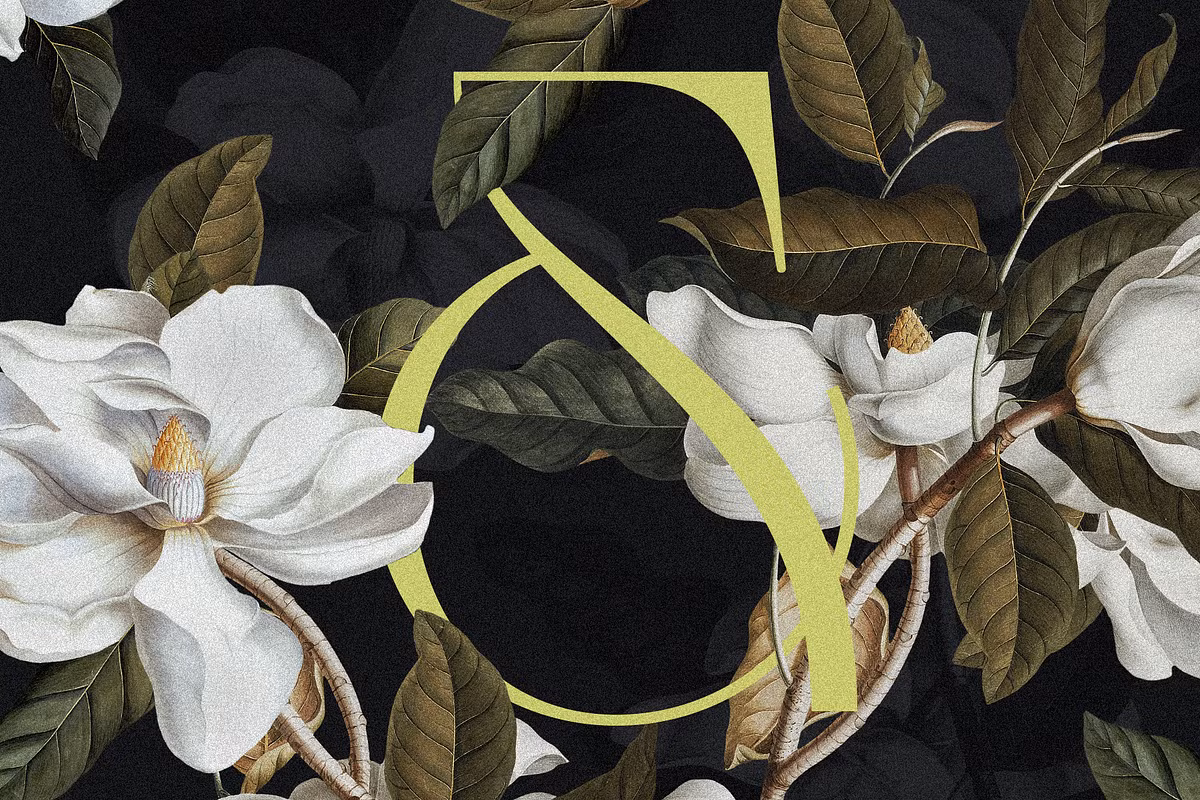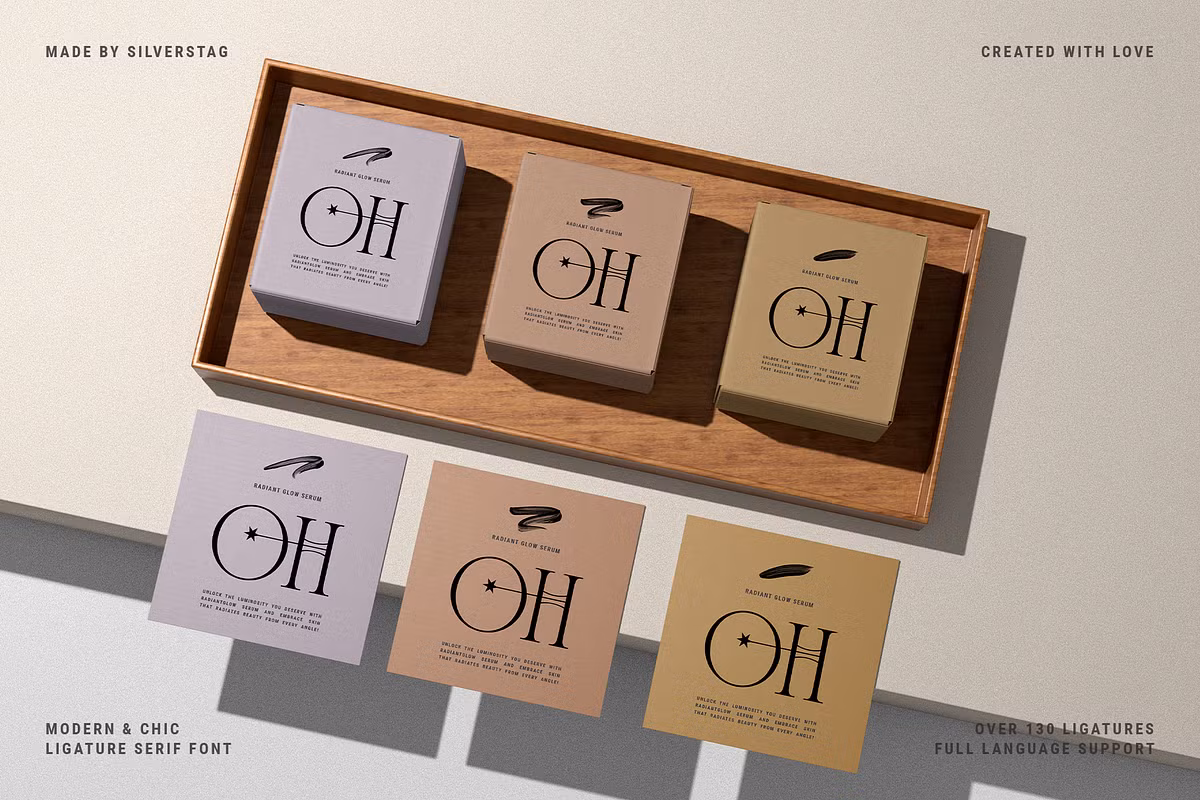
Cosmic Solace - Ligature Serif Font
Cosmic Solace: Elegant Ligature Serif Font Inspired by Parisian Design
Cosmic Solace is a serif font. Cosmic Solace mixes the look of the Eiffel Tower, with type. Cosmic Solace shows the ironwork and the structure of the tower. Cosmic Solace adds a feel to your designs. I find Cosmic Solace gives my designs a look. The new version of Cosmic Solace offers six weights from Regular, to Black. Cosmic Solace works for projects.
Elegant ligature serif font representation
Cosmic Solace reflects Parisian design aesthetics.
Cosmic Solace is a font that also works as a design piece. Cosmic Solace reflects the look of Paris. The font takes ideas from the Eiffel Tower. The font shows columns and iron lattice, like the Eiffel Tower. Each letter, in the font is made with care. The font includes than 130 ligatures that let letters blend together giving the text a flow and a natural feel. The blending adds rhythm and harmony to the text. The font fits design projects that need a look.
The serif style of Cosmic Solace balances modern design. Cosmic Solace shows curves and sharp edges. The contrast makes the letters stand out in any setting. I have used Cosmic Solace in my projects. I saw how Cosmic Solace made a magazine layout feel fresh. I also saw how Cosmic Solace fit a wedding invitation. Cosmic Solace works for ideas.
Character Sets and Ligatures
Cosmic Solace has a big character set. Cosmic Solace includes than 130 ligatures and alternate letters. I like that Cosmic Solace gives designers ways to change their text. I can make a look, for any project, with Cosmic Solace. Cosmic Solace also has numbers, punctuation and many language characters. That means Cosmic Solace works in languages for my designs.
Character set of Cosmic Solace font
Character set illustrates the versatility of Cosmic Solace.
Using ligatures makes the look of your text better. In Cosmic Solace ligatures join letters so the letters flow together and look nice. I use ligatures when I design a logo or a brand because a unique look, for the letters is crucial. When you add ligatures the text feels tighter and more interesting. The audience sees the ligatures and the eye stays on the text longer.
Use Cases for Cosmic Solace
Cosmic Solace is flexible. Cosmic Solace fits uses. I have used Cosmic Solace in ways. Cosmic Solace helps with the tasks and the big projects. Here are some notable use cases, for Cosmic Solace:
• Layouts: If you are working on a magazine, a journal or a book Cosmic Solace adds elegance to the designs. Cosmic Solace readability and Cosmic Solace visual appeal make Cosmic Solace a good choice, for headings, subheadings and body text. I have used Cosmic Solace in my projects. Cosmic Solace works well.
• Branding and Logos: Cosmic Solace works well for branding. When I use Cosmic Solace I see the design that helps create logos and branding materials. Cosmic Solace includes the ligatures and the character set that give a identity. The typographic identity of Cosmic Solace connects with the audiences.
• Wedding Invitations: If you are planning an event Cosmic Solace adds a look, to wedding invitations and stationery. The smooth flow and simple beauty of the font improve the design of wedding invitations. Many couples choose wedding invitations because wedding invitations use this font. I have seen wedding invitations, from Cosmic Solace work well for weddings.
• Product Packaging: The retail competition forces the product packaging to stand out. I see that the product packaging needs to catch the shopper’s eye. Cosmic Solace can improve the product packaging design. The product packaging then shows a look that draws the consumers.
Cosmic Solace used in packaging design
Cosmic Solace enhances product packaging appeal.
When you design with Cosmic Solace pairing Cosmic Solace with fonts can increase the impact. Below are some pairing suggestions:
• Sans Serif Fonts: I pair Cosmic Solace with a sans serif font like Montserrat or Open Sans. The look feels modern. The contrast, between the elegance of the serif and the simplicity of the sans serif makes the design balanced.
• Script Fonts: I have tried pairing Cosmic Solace with a script font such, as Great Vibes or Pacifico for the feel. Cosmic Solace and Great Vibes or Pacifico give a look. The combination works well on invitations and, on branding.
• Display Fonts: If you are trying to make a statement pair Cosmic Solace, with a display font. I have used Cosmic Solace and a display font on the posters and, on the advertisements. Cosmic Solace and a display font work well.